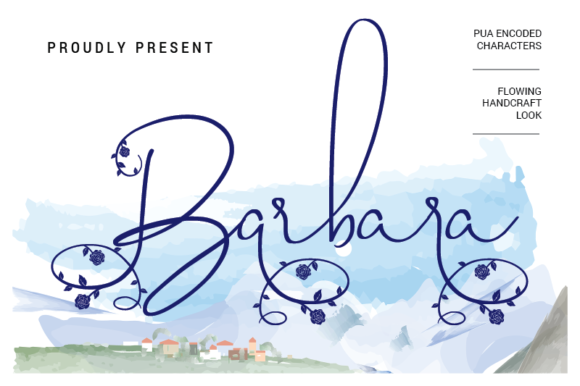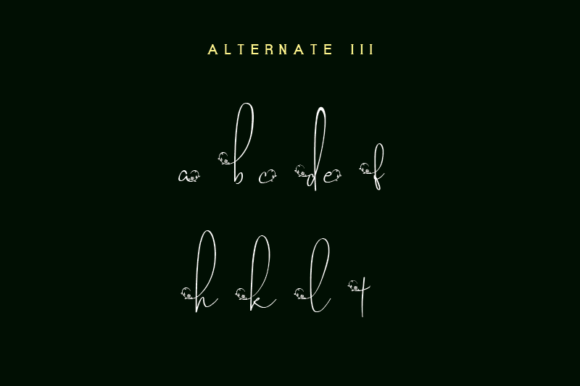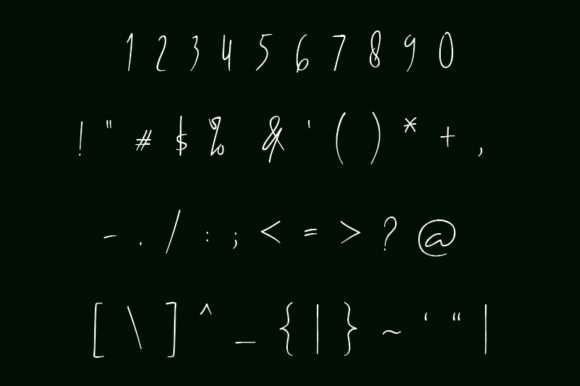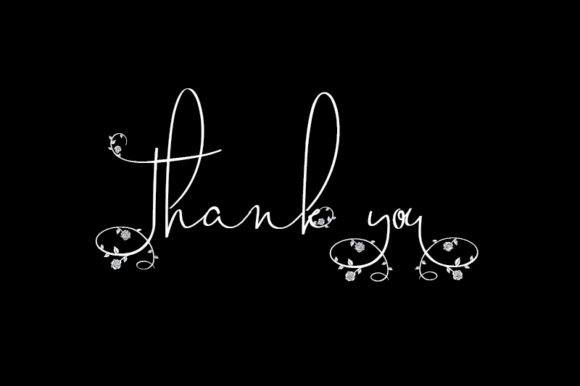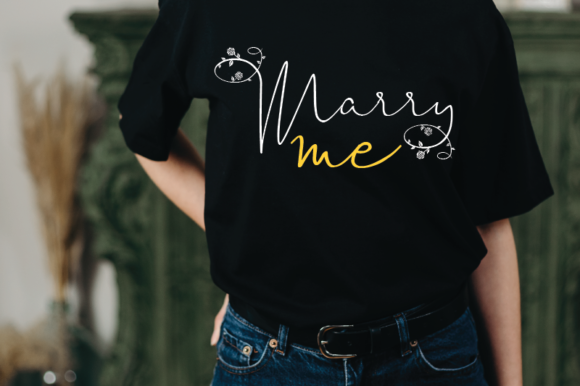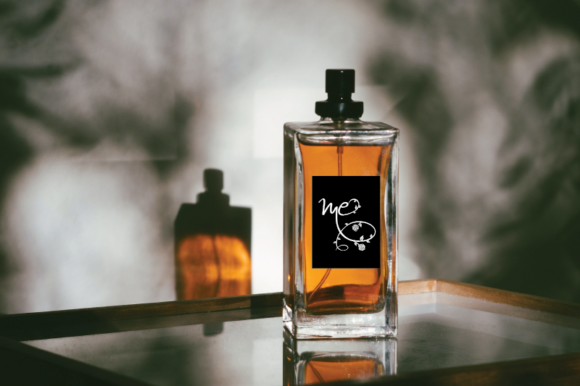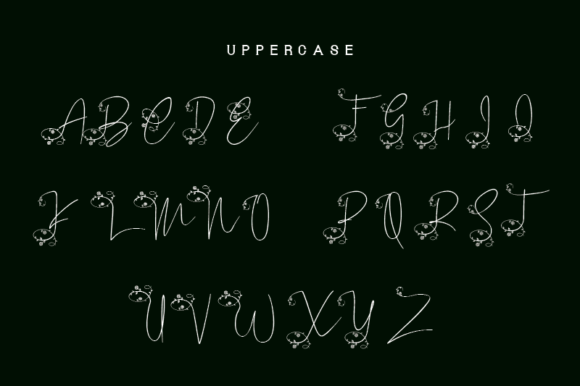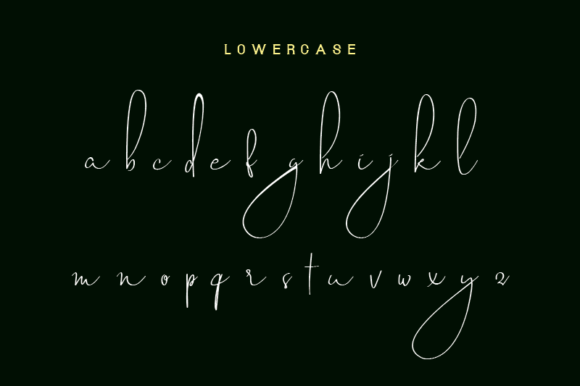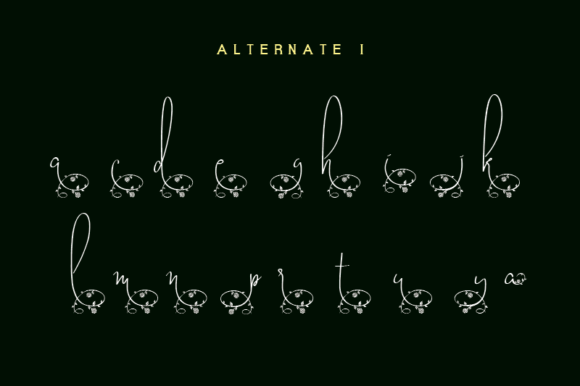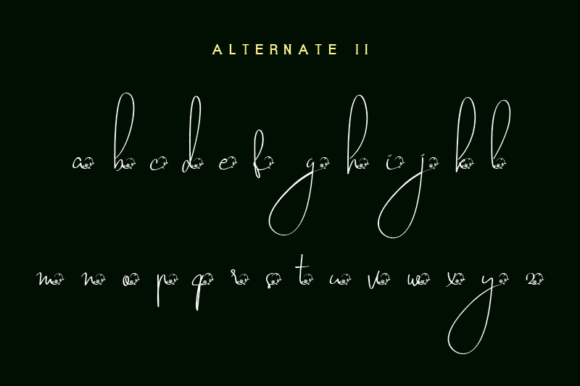
Barbara Font
About Barbara Font
Meet Barbara, a delicate, elegant, and flowing handwritten font that exudes a sense of timeless beauty. This font is a true gem, with its beautiful and well-balanced characters that add a touch of sophistication to any design. With Barbara as your creative companion, the possibilities are endless, and you’ll notice how it brings your most imaginative ideas to life with effortless charm.
Barbara’s delicate and flowing nature gives your text a sense of grace and refinement. Each letter is meticulously crafted, creating an exquisite and harmonious appearance. Whether you’re designing wedding invitations, love letters, or inspiring quotes, Barbara adds a touch of elegance that leaves a lasting impression.
This font’s versatility knows no bounds, as it matches a wide pool of designs. From branding and logo design to social media graphics, blog headers, and digital artwork, Barbara seamlessly adapts to any project, elevating the overall aesthetic with its sophisticated allure.
Imagine using Barbara for wedding stationery. The font’s delicate strokes convey a sense of romance and tenderness, setting the perfect tone for a day filled with love and joy. Your guests will be enchanted by the font’s beauty as they read the details of the special occasion.
In branding and logo design, Barbara shines bright. Its well-balanced characters create a logo that exudes elegance and professionalism, reflecting your brand’s identity with finesse and grace.
Social media marketers will appreciate Barbara’s ability to capture attention. Whether it’s for Instagram posts, Pinterest graphics, or Facebook banners, the font’s flowing elegance draws people in, encouraging engagement and interaction with your content.
Moreover, Barbara’s readability ensures that your message is conveyed with clarity and ease, even in longer passages. This makes it a valuable asset for various print materials, such as books, magazines, and brochures.
In the realm of handmade crafts, Barbara adds a touch of artistry and charm. Use it for creating personalized gift tags, art prints, or handmade cards, and watch as each creation becomes a unique piece of art, cherished by those who receive it.
In conclusion, Barbara is a font that exudes delicacy, elegance, and flowing beauty. Its well-balanced characters and versatile nature make it a perfect match for a wide range of design projects. Embrace Barbara as your creative companion, and notice how it breathes life into your most imaginative ideas, transforming them into captivating and enchanting creations. Let your creativity flourish in the graceful embrace of Barbara, the delicate and elegant handwritten font that captures hearts with its timeless allure.